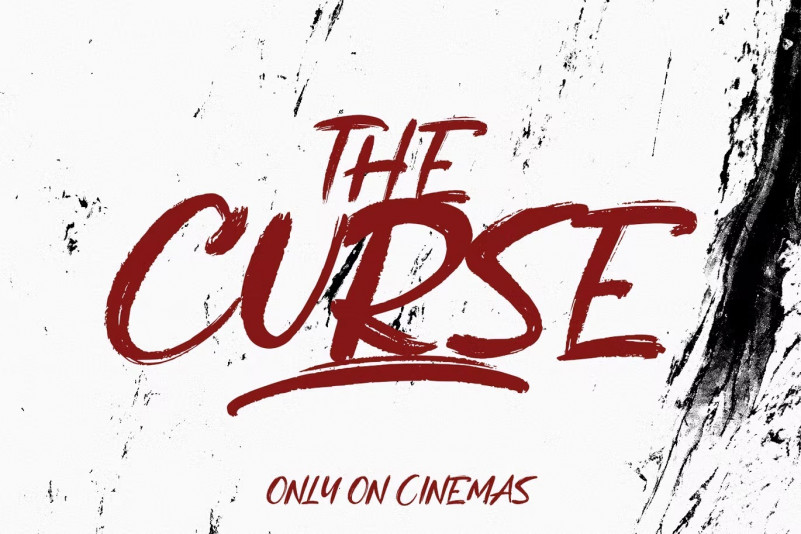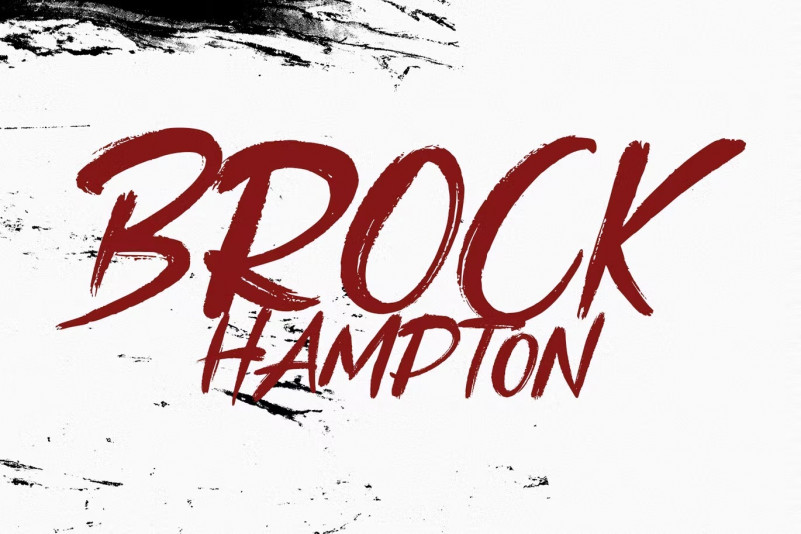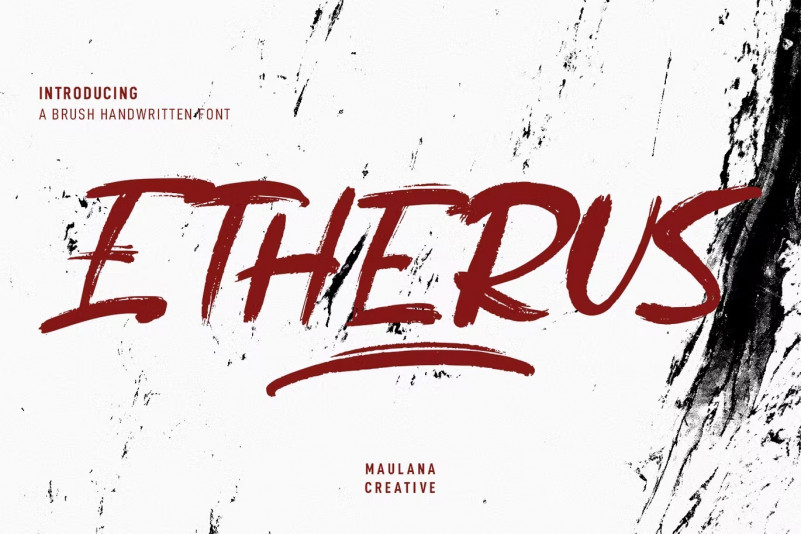
Etherus Font
Etherus is a casual brush display handwritten font. With medium brush stroke, fun character with a bit of ligatures and alternates. To give you an extra creative work. Etherus font support multilingual more than 100+ language. This font is good for logo design, Social media, Movie Titles, Books Titles, a short text even a long text letter and good for your secondary text font with sans or serif. Make a stunning work with Etherus font.